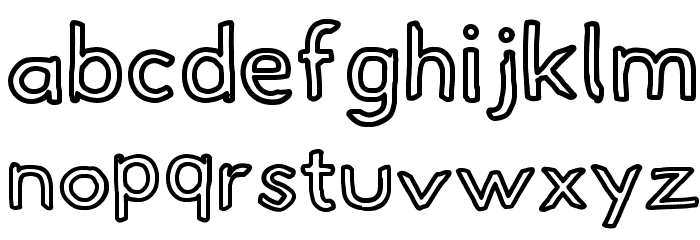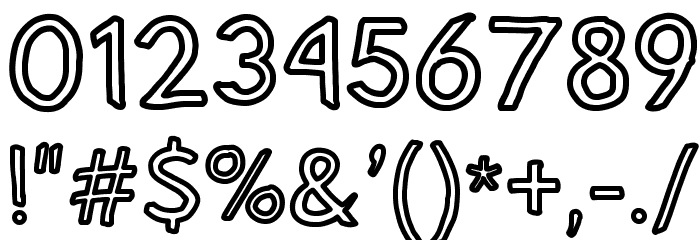
Hussar Pisanka Outline Font
This font features a playful and bold outline style, giving each character a distinct and eye-catching appearance. The letters are rounded with a consistent thickness, creating a uniform look across both uppercase and lowercase characters. The numbers and special characters maintain the same playful outline, ensuring a cohesive design throughout. This font's unique style makes it ideal for creative projects where a fun and engaging typeface is desired. Its clear and legible design ensures readability while adding a touch of whimsy.
A playful, bold outline font with rounded characters and consistent thickness.
- Proposed Projects: Ideal for children's books, playful branding, posters, and creative invitations.
- Overall Style: Playful, Modern